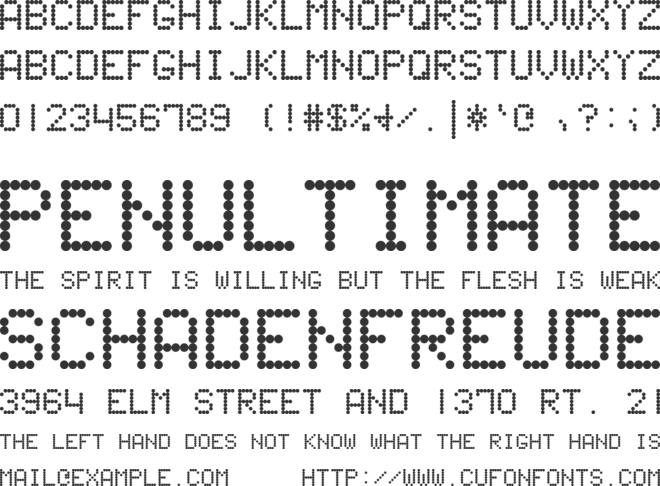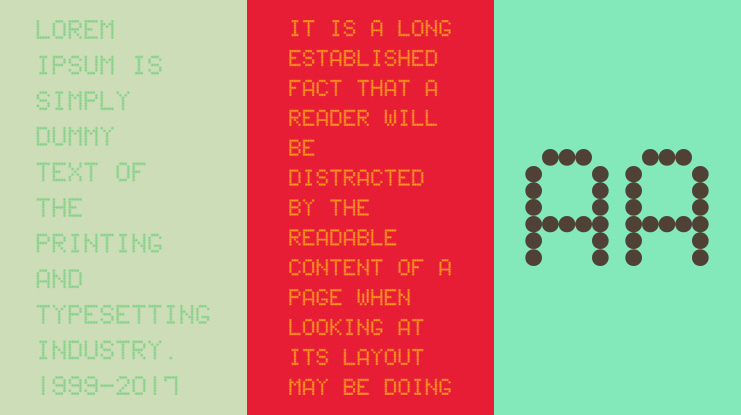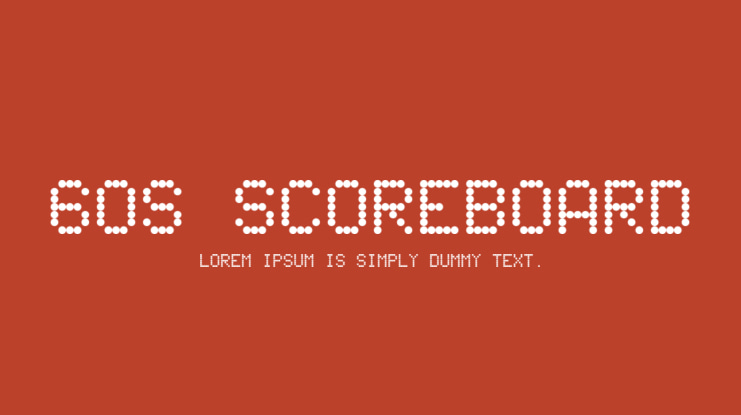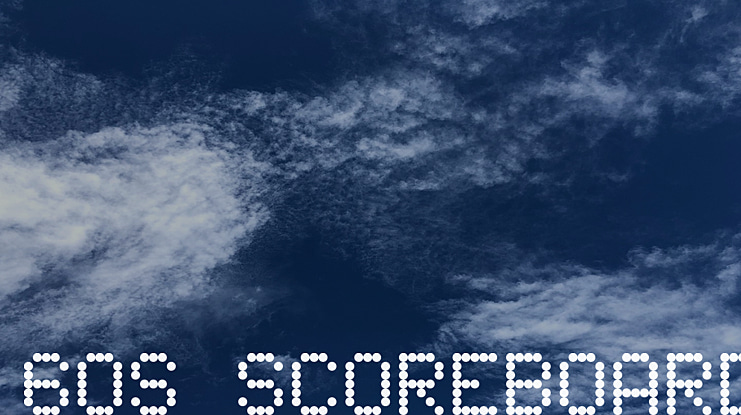
60s Scoreboard Font
John H. Isles
60s Scoreboard is a recreation of the dot-matrix scoreboard displays of many sports stadiums past. This font was originally created on Fontstruct.com (original URL: http://fontstruct.com/fontstructions/show/343207/).